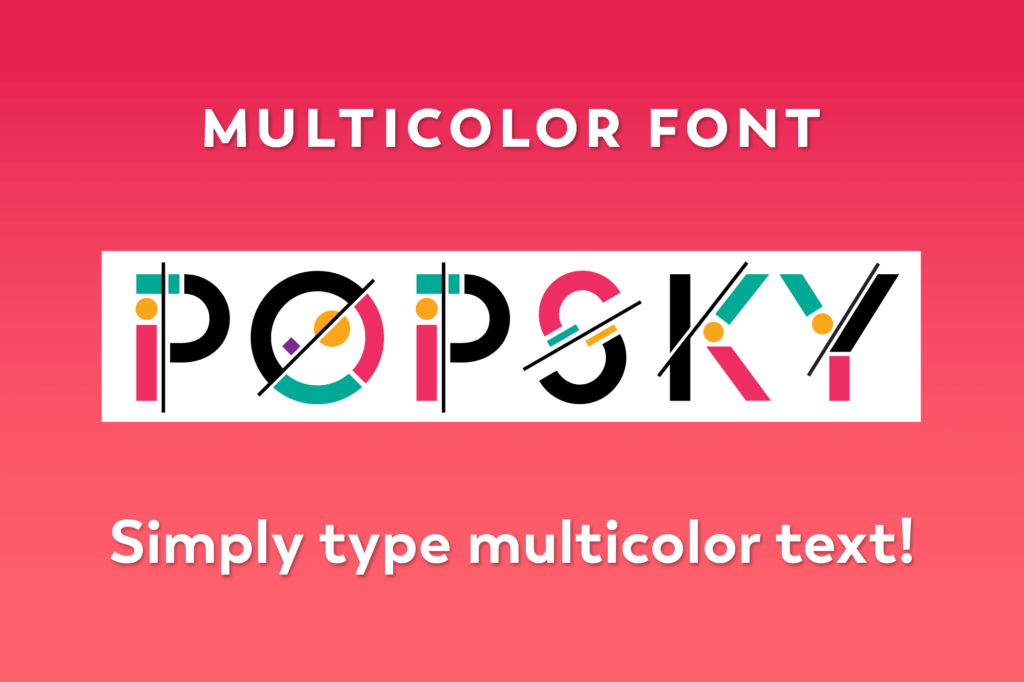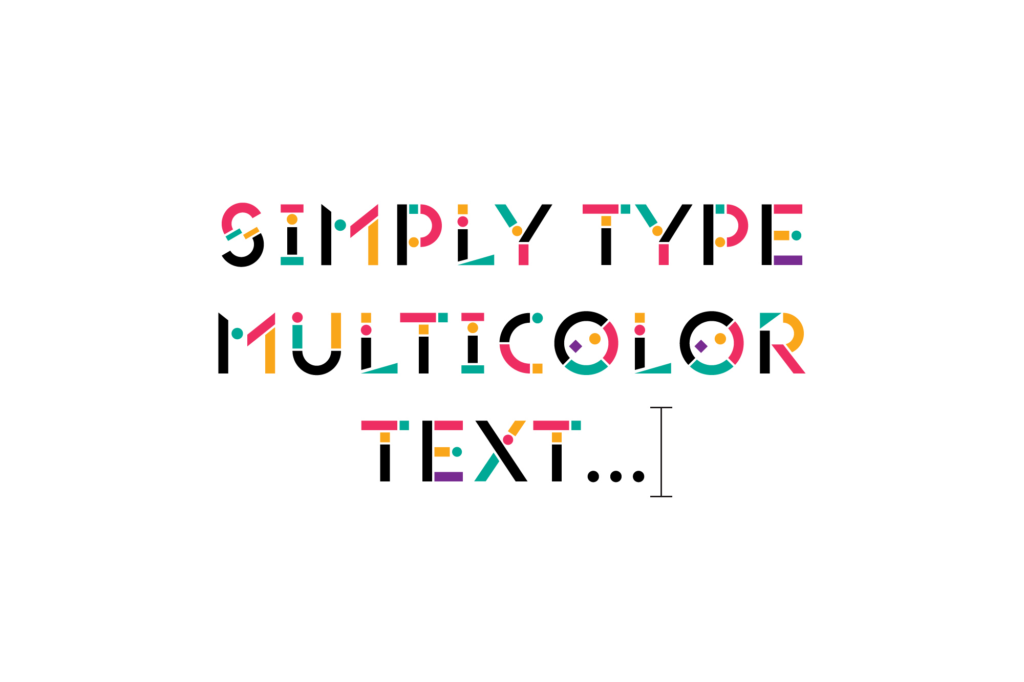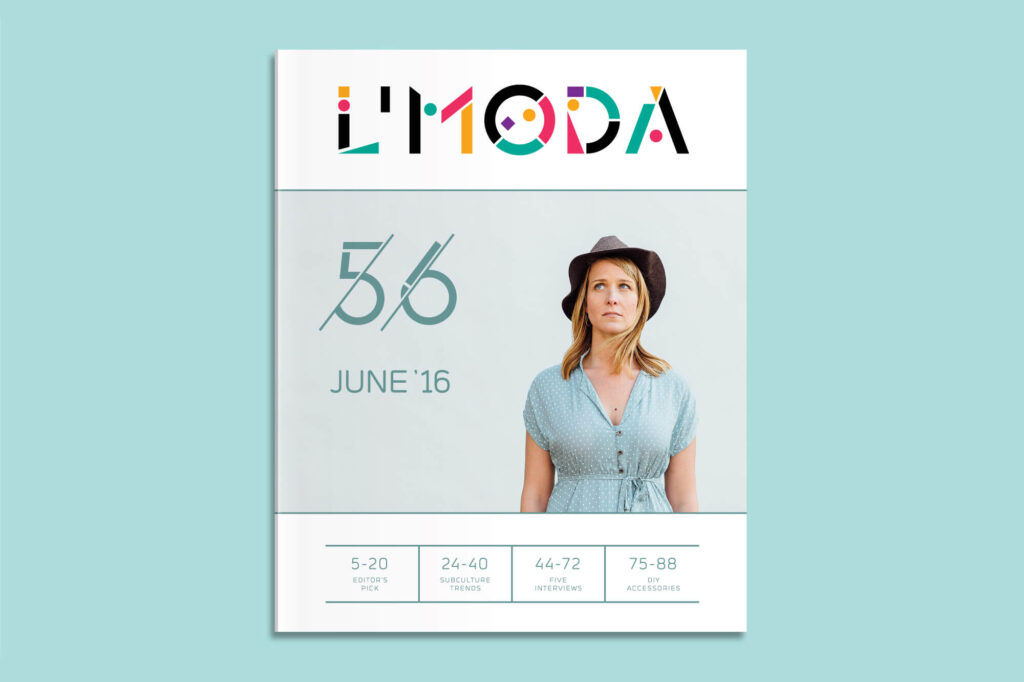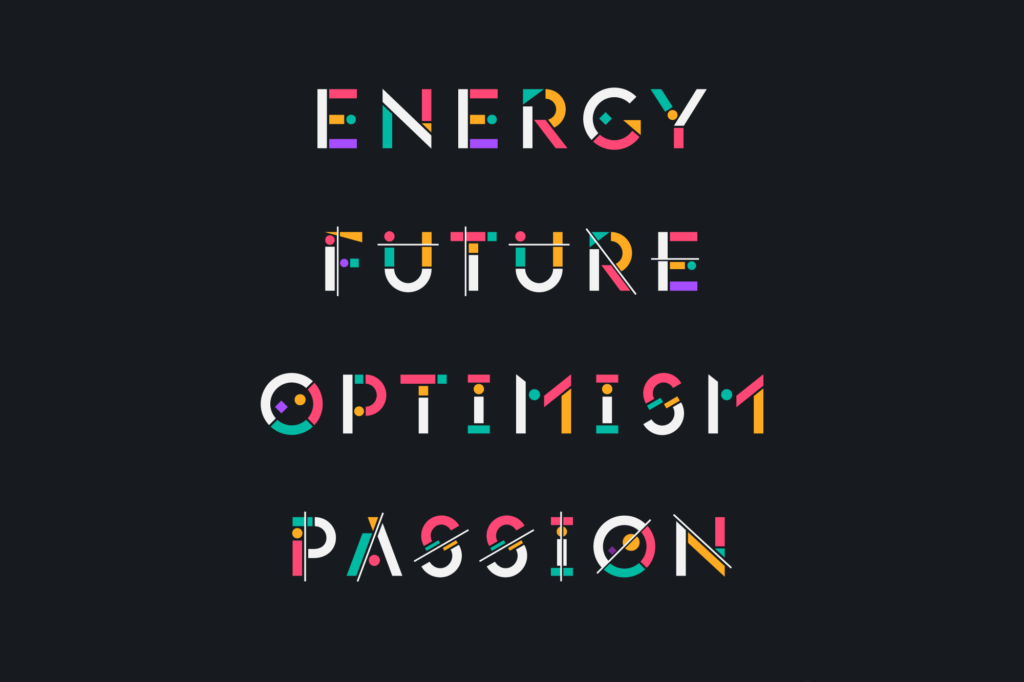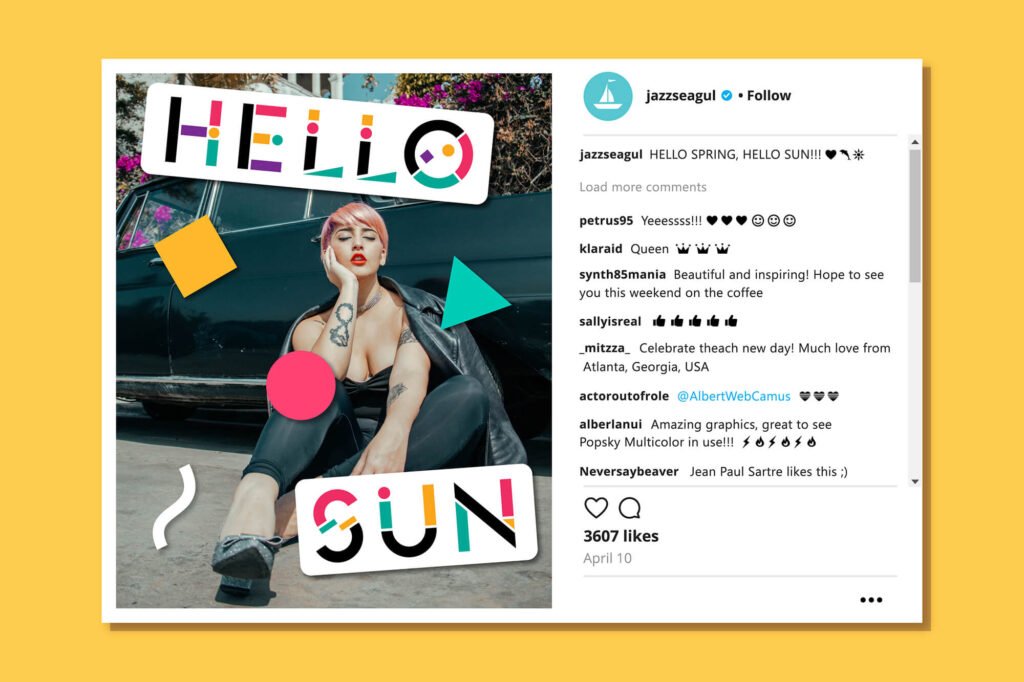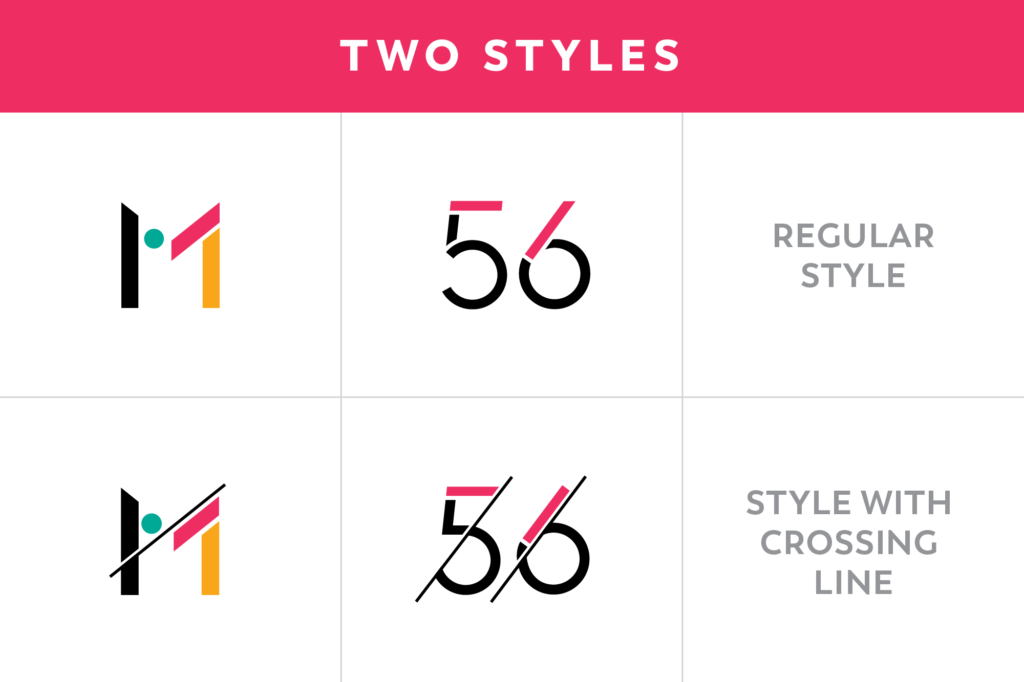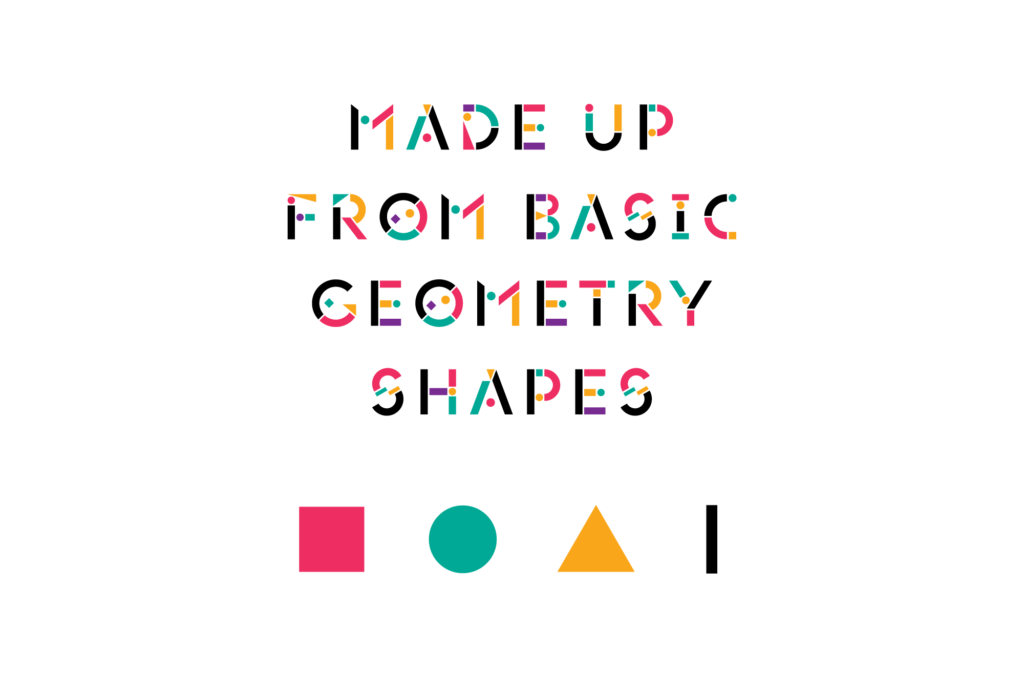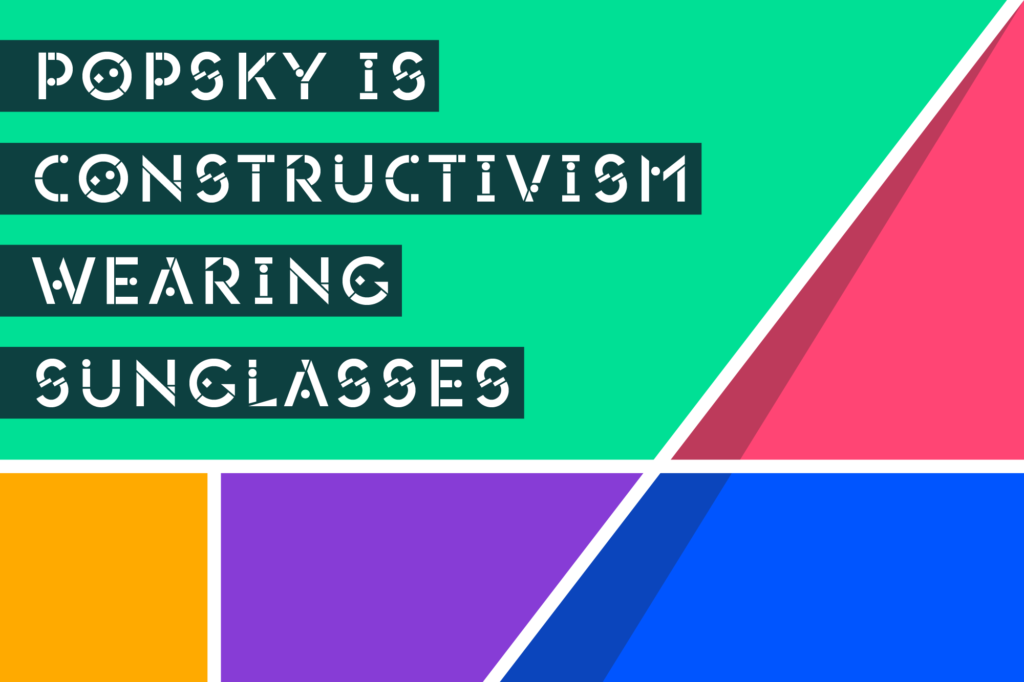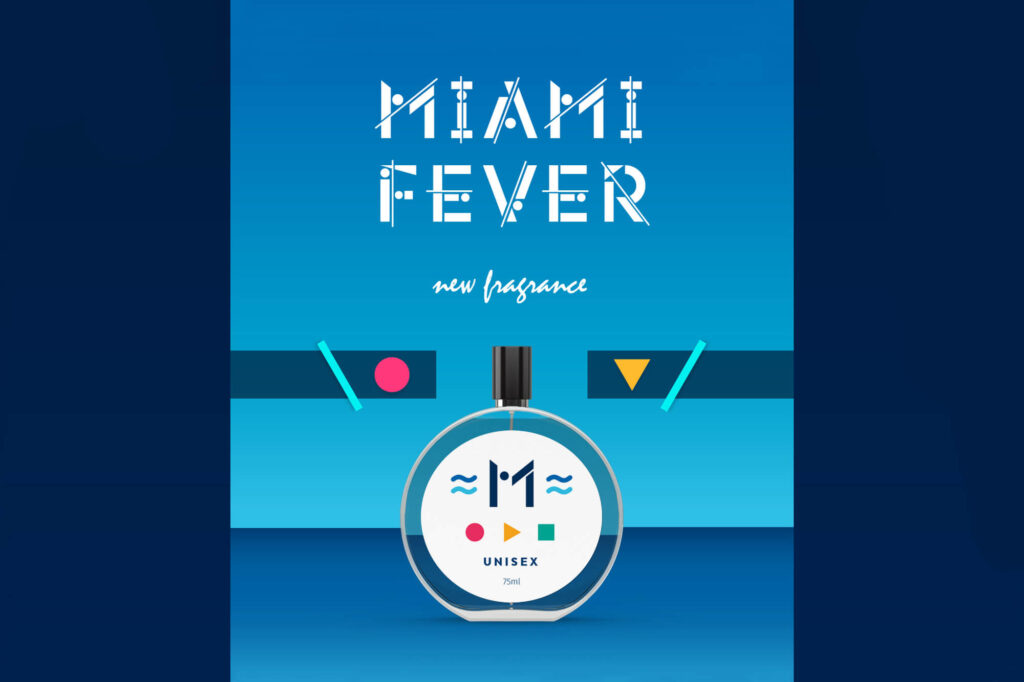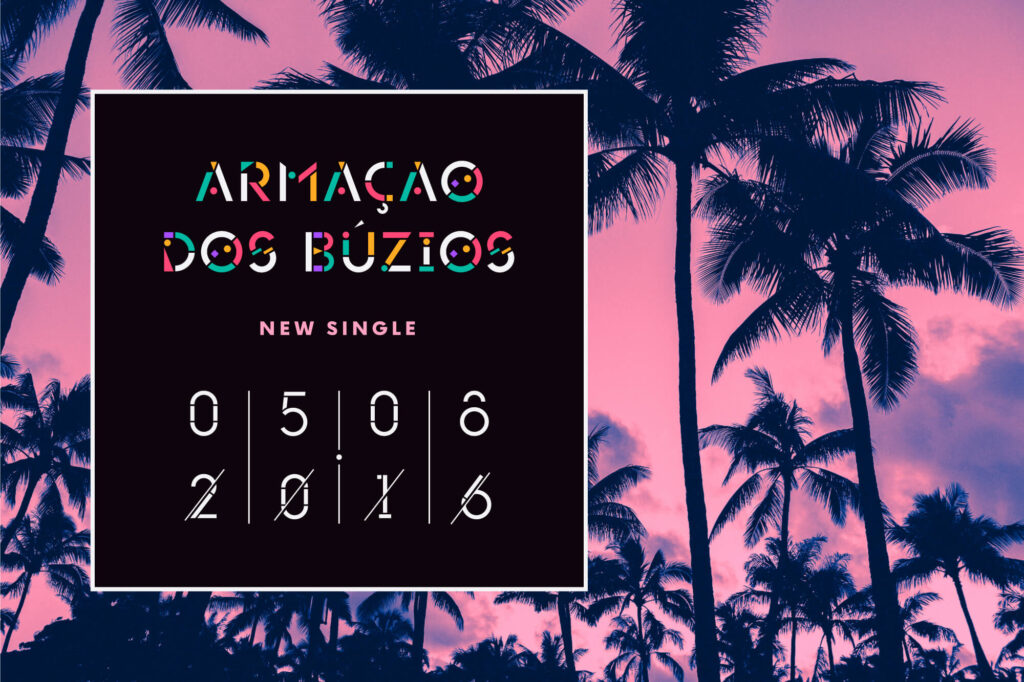
POPSKY
MULTICOLOR FONT (2 FONTS)
POPSKY is an avant-garde multicolor font that mixes constructivism with pop art. Its design incorporates optimism and motivation that will instantly bring the attention of your clients and followers. Made solely out of basic geometry shapes, it is “constructivism wearing sunglasses”.
Legendary Luc Devroye included it in his “The Best Commercial Typefaces” list and some of the leading designers and typographers greatly accepted it and already use it in their projects. “What a breath of fresh air!” and “One of the hottest things on the font market recently!” are some of the comments that Popsky received so far.
It comes with two stylistic sets (with/without crossing line), two number sets, punctuation, and accented characters.